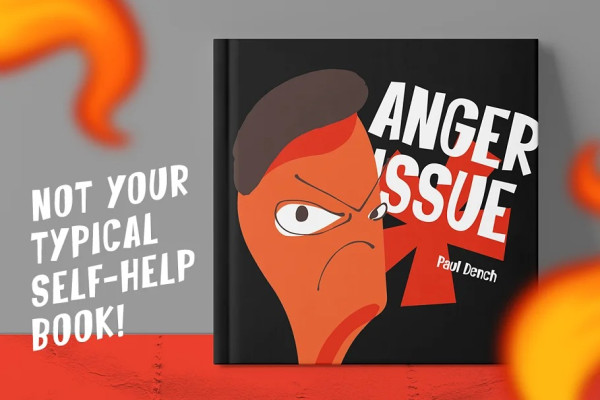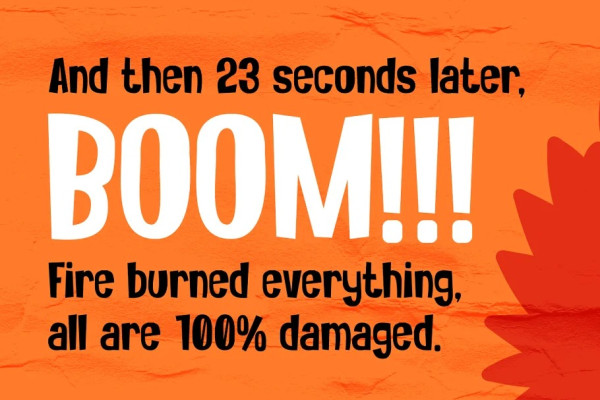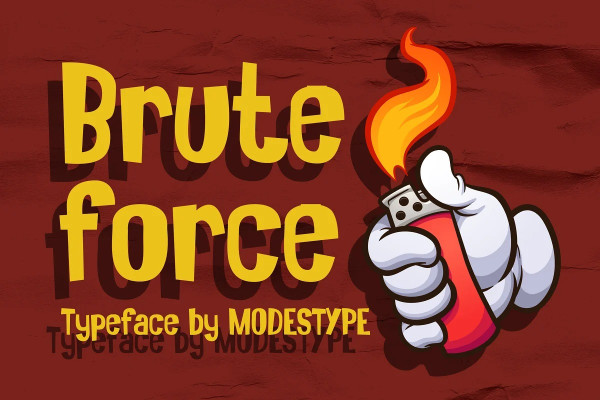
Bruteforce Font
Bruteforce Font – Comic Display Font. A straight to the point font, Bruteforce will give you a strength in a comical way to the words written. Suit perfectly for comical books market, online games, teens event poster, school supplies font, poster, movie title, youtube covers, youtube thumbnails, social media page covers and so on…